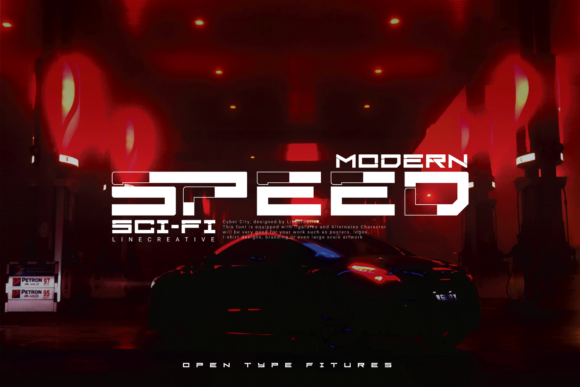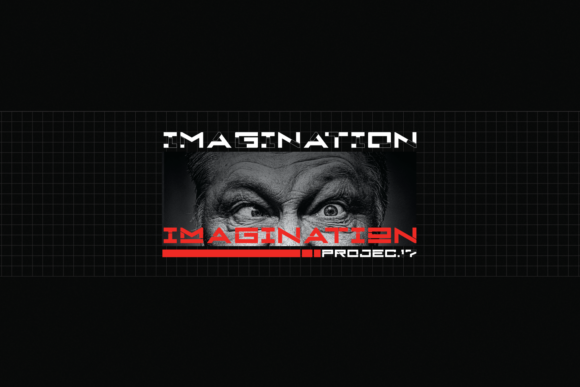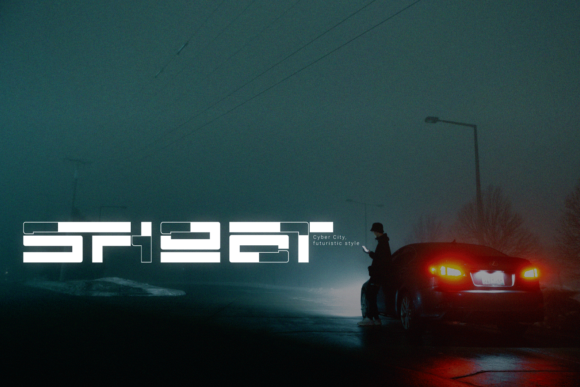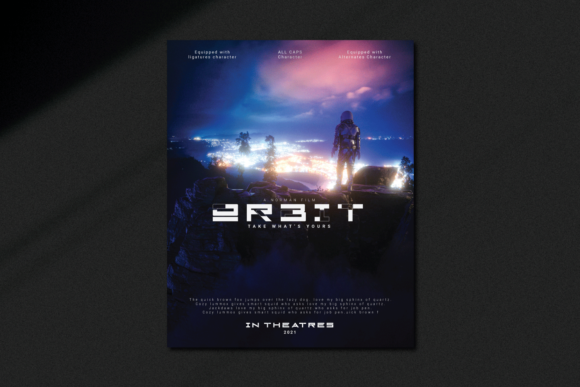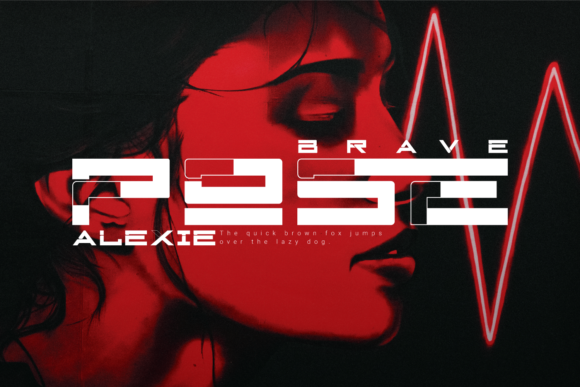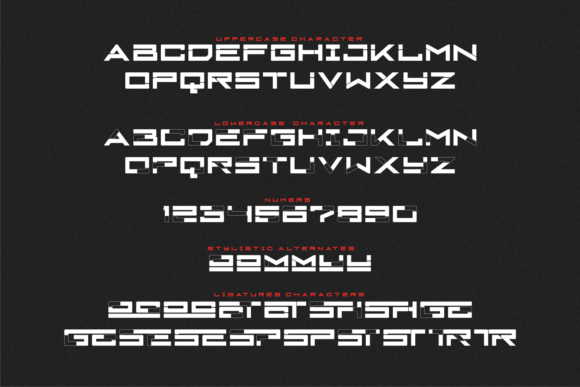
Cyber City Font: Elevate Your Designs with a Cool and Squared Lettered Display Font
In the world of design, fonts play a crucial role in conveying the tone and personality of a project. Whether you’re working on a logo, branding, or marketing materials, the right font can make all the difference. If you’re looking for a font that can add a touch of modernity and edginess to your designs, look no further than Cyber City Font. In this article, we’ll explore the features and benefits of Cyber City Font, and why it’s a must-have for designers and crafters.
What is Cyber City Font?
Cyber City Font is a cool and squared lettered display font that’s perfect for designers who want to add a touch of futurism to their work. This font is designed to be versatile and can be used on a wide range of projects, from logos and branding to posters and social media graphics. Its unique squared shape gives it a modern and edgy feel that’s sure to grab attention.
Key Features of Cyber City Font
- Squared Lettered Design: The font’s squared shape gives it a modern and futuristic feel that’s perfect for designs that require a bold and edgy look.
- Versatile: Cyber City Font can be used on a wide range of projects, from logos and branding to posters and social media graphics.
- Easy to Read: Despite its bold and edgy design, Cyber City Font is easy to read, making it perfect for headlines and titles.
- High-Quality: The font is designed to be high-quality, with crisp and clean lines that will look great on any device.
Why You Need Cyber City Font in Your Font Library
Cyber City Font is an incredible asset to any font library, and here’s why:
- Elevate Your Designs: With Cyber City Font, you can add a touch of modernity and edginess to your designs, elevating them to the next level.
- Stand Out from the Crowd: The font’s unique squared shape will help your designs stand out from the crowd, grabbing attention and making a lasting impression.
- Save Time: With Cyber City Font, you can save time searching for the perfect font for your project. This font is versatile and can be used on a wide range of projects.
- Perfect for Branding: The font’s modern and edgy design makes it perfect for branding and logo design, helping you to create a strong and memorable brand identity.
How to Use Cyber City Font
Using Cyber City Font is easy. Here are a few tips to get you started:
- Headlines and Titles: Use Cyber City Font for headlines and titles to add a touch of modernity and edginess to your designs.
- Logos and Branding: Use the font for logos and branding to create a strong and memorable brand identity.
- Posters and Social Media Graphics: Use Cyber City Font for posters and social media graphics to grab attention and make a lasting impression.
| Font Name | Cyber City Font |
| Author | Line creative |
In conclusion, Cyber City Font is a cool and squared lettered display font that’s perfect for designers who want to add a touch of modernity and edginess to their work. Its versatility, ease of use, and high-quality design make it an incredible asset to any font library. Whether you’re working on a logo, branding, or marketing materials, Cyber City Font is sure to elevate your designs and help you stand out from the crowd.